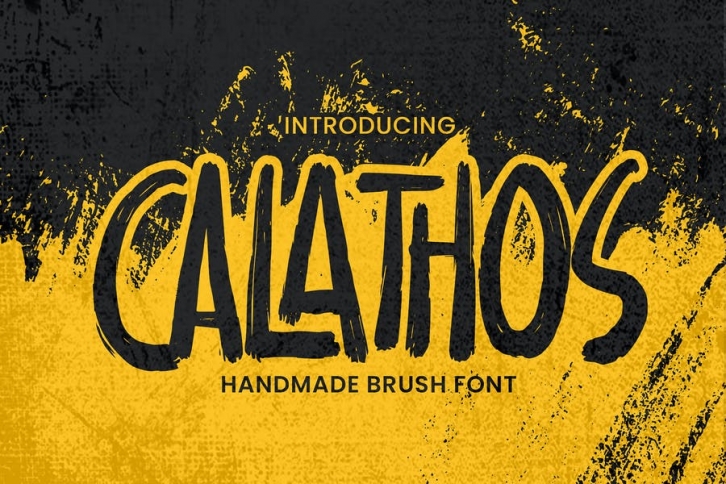
Introducing Calathos – Handmade Brush Font is a Signature Style and classy style, this font is great for your creative projects such as watermark on photography, and perfect for logos & branding, photography, invitation, watermark,advertisements,product designs, stationery, wedding designs,label ,product packaging, special events or anything that need handwritting taste. Calathos a natural handwritten feel. This handmade font will make your design has a beautiful natural touch for each details. It is perfect for any design project as Invitation,logo, book cover, craft or any design purposes. photos, photography overlays, signs, window art, scrapbooking, tags and so much more!